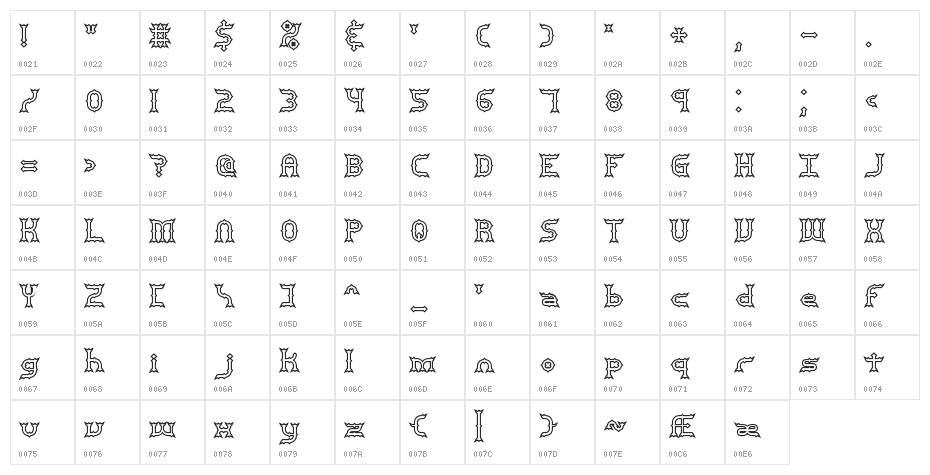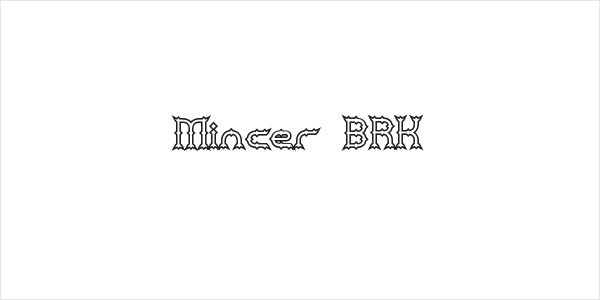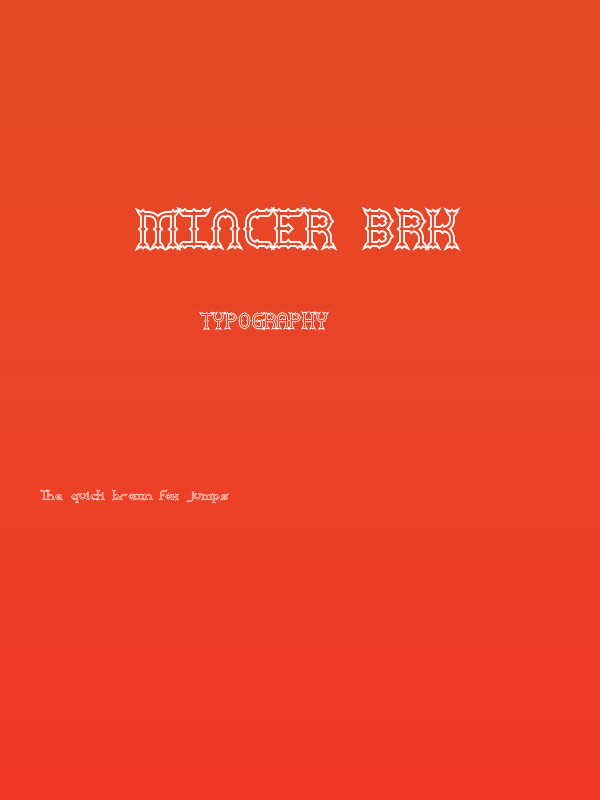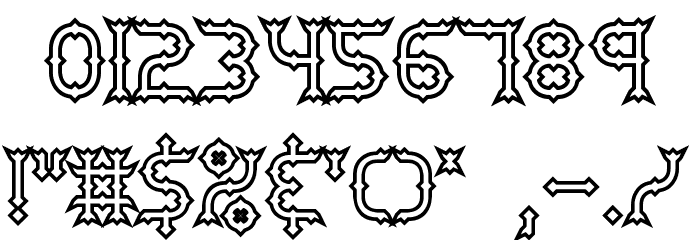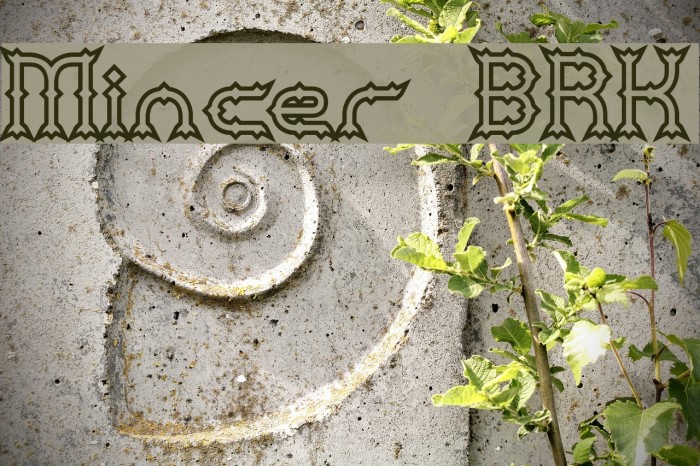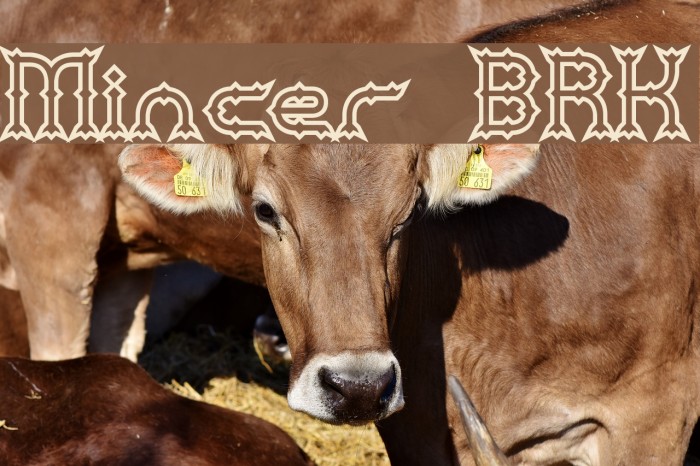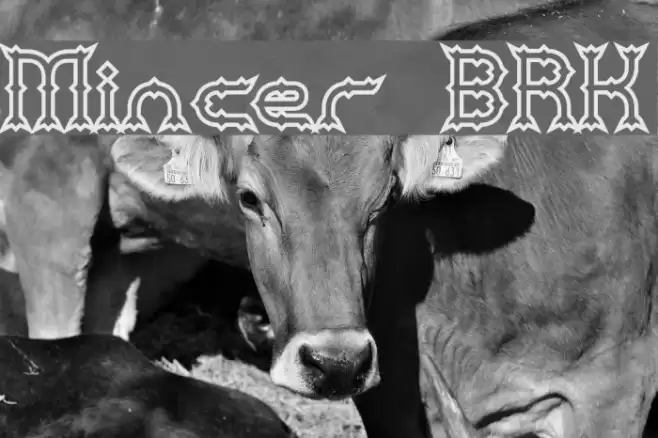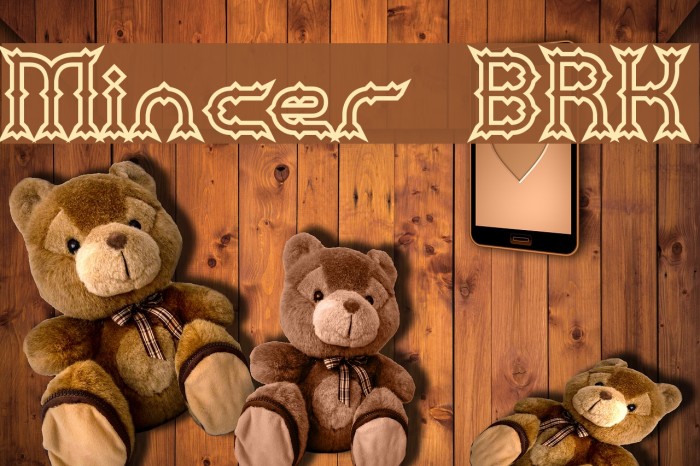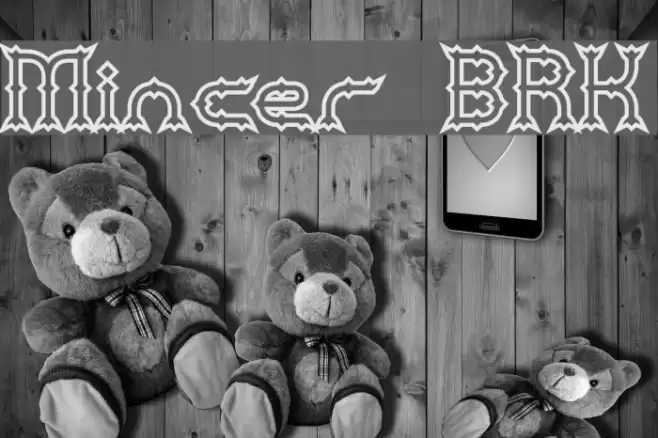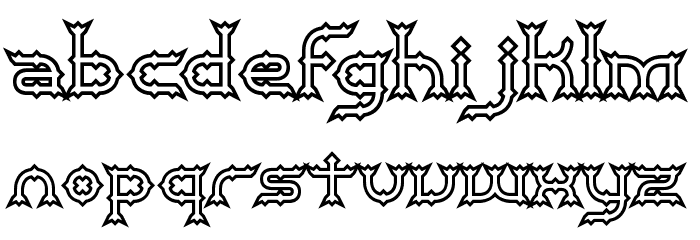
Mincer BRK Font
Mincer BRK Description
This font features a highly decorative and intricate design, characterized by sharp, angular edges and a gothic-inspired aesthetic. Each letter is outlined with a bold, black stroke, creating a striking contrast against the white interior. The uppercase and lowercase letters maintain a consistent style, with unique embellishments that give the font a distinct, edgy appearance. Numbers and special characters follow the same ornate pattern, making the font suitable for eye-catching designs. The overall look is both bold and artistic, perfect for projects that require a dramatic and unconventional typeface.
| Proposed Projects | Ideal for Halloween-themed designs, album covers, posters, and any project needing a dramatic, gothic touch. |